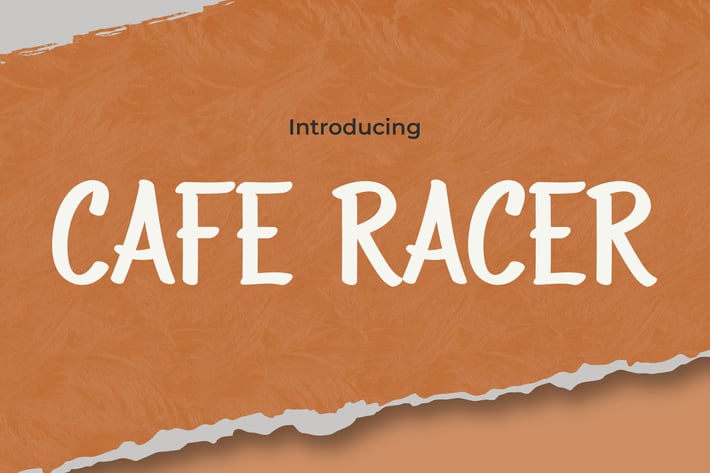
Cafe Racer - Retro Script Font
Cafe Racer is a vintage script font that encapsulates the daring and adventurous spirit of the classic cafe racer motorcycles, blending speed with artistic flair. This font is ideal for projects that require a touch of old-school sophistication combined with a sense of freedom and rebellion. Whether you're designing logos that need to stand out with a unique character, crafting quotes that carry a vintage charm, or creating invitations that resonate with a timeless appeal, Cafe Racer delivers. Its flowing script is perfect for posters and greetings that seek to capture the essence of a bygone era, and its stylistic versatility makes it suitable for packaging, branding, and covers that evoke a sense of nostalgia. Additionally, Cafe Racer is perfect for event promotions, headlines, and advertising that demand a distinctive, eye-catching style.